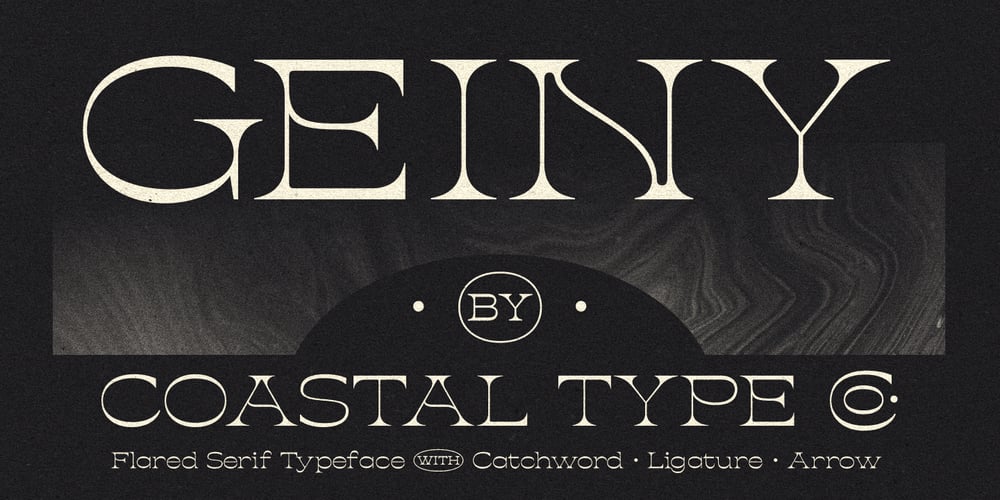
Geiny Font Family was designed by Freissy Audrey and published by CoastalType. Geiny contains 1 styles and family package options. Geiny, is a modern display typeface with flared serif and horizontal emphasis as its characteristics. alternative styles with curved crossbar, curved tails, and catchwords when you activate Discretionary Ligatures to create interesting typography composition.Features 296 glyphs Stylistic Alternate & Discretionary Ligatures Accented characters Multiple Languages Supported : Afrikaans, Albanian, Catalan, Danish, Dutch, English, Estonian, Finnish, French, German, Icelandic, Italian, Norwegian, Portugese, Spanisch, Swedish, Zulu